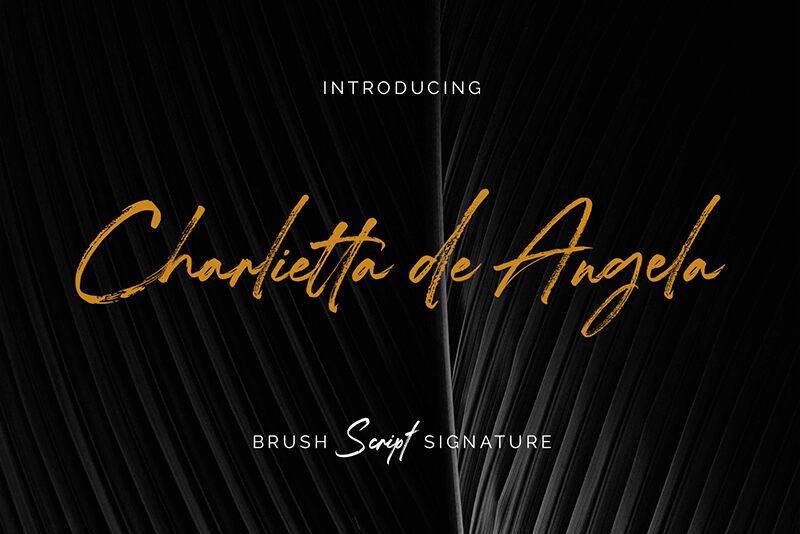
Charlietta de Angela
Charlietta de Angela, a creation by Almarkhatype, brings the personal touch of handcrafted artistry to the digital realm. This brush signature font boasts a semi-light weight that gracefully dances across the page, effortlessly emulating the flow and flair of natural handwriting. With its elegant curves and refined movements, Charlietta de Angela exudes a sense of bespoke sophistication that can elevate any project.
The aesthetic appeal of this typeface lies in its delicate balance between expressiveness and readability-its characters are imbued with personality without compromising clarity. Each letterform is carefully designed to capture the essence of an artist's stroke, making it an ideal choice for branding, invitations, and editorial design where a touch of intimacy is desired.
Imagine Charlietta de Angela as the voice of your next creative endeavor; whether it's adding a humanizing element to digital content or infusing printed materials with an air of exclusivity, this font stands ready to enrich your designs with its unique charm and style.